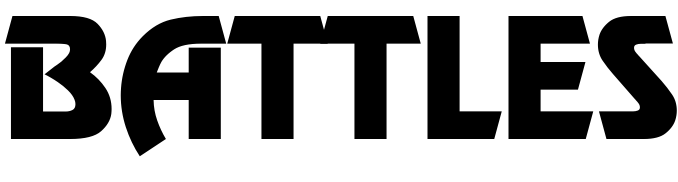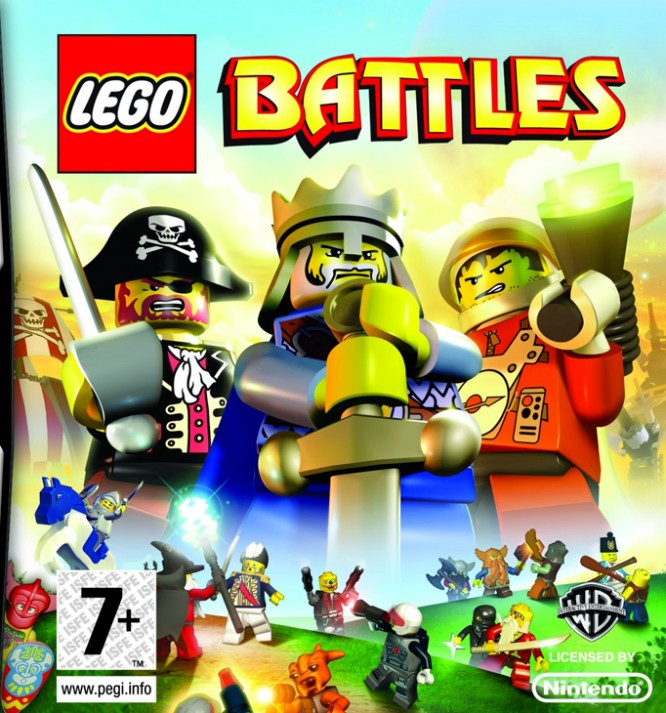
Lego Battles Font
Fonts in UseLego Battles is a real-time strategy game developed by Hellbent Games and published by Warner Bros. Interactive Entertainment, featuring various Lego themes and characters in a battle for dominance.
The logo for the video game utilizes the Revue font, created by Colin Brignall. Revue is a display sans serif typeface known for its bold, bow-shaped letterforms, clipped strokes on certain capitals like F and H, and unconventional baseline.